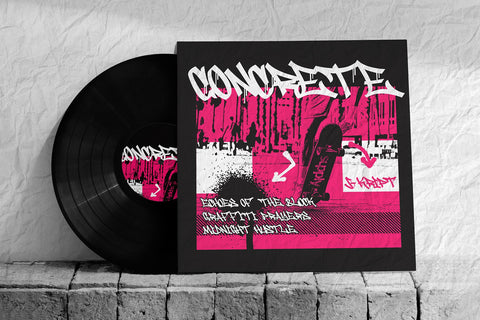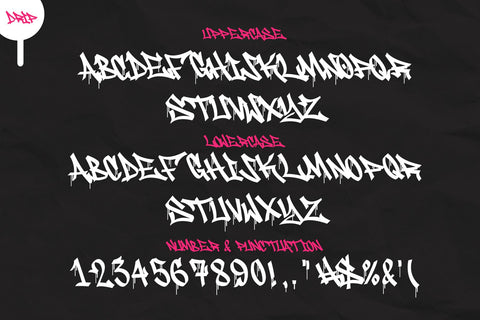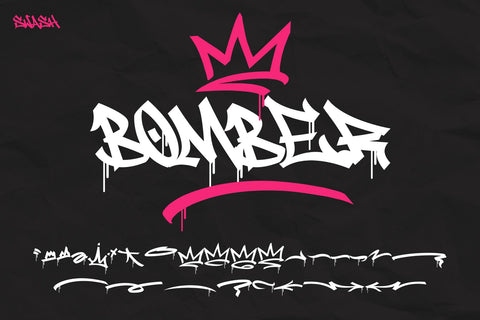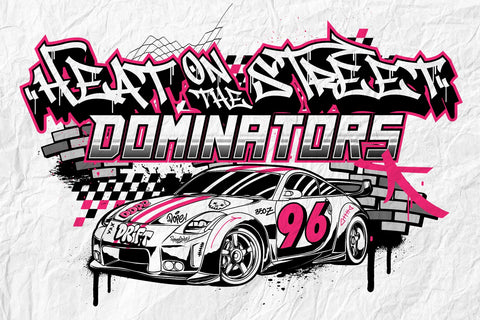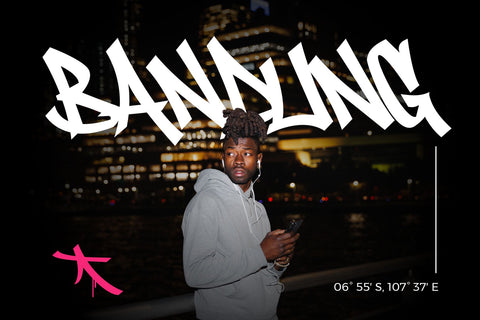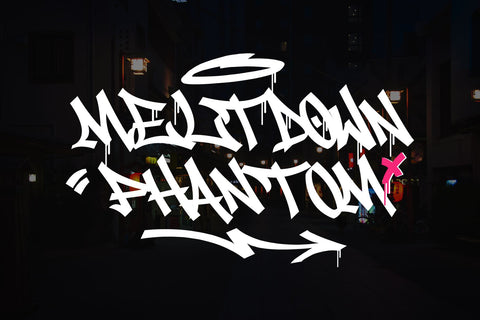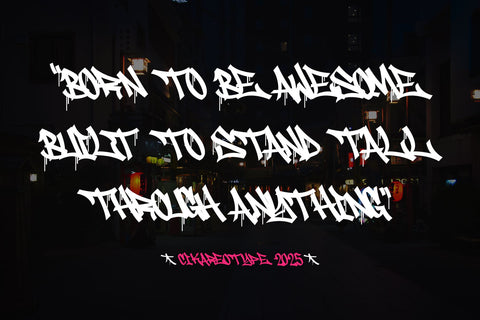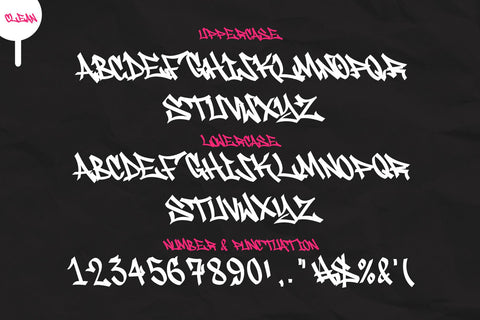
Meltdown Phantom – Urban Drip Graffiti Font
Meltdown Phantom is a rebellious monoline script graffiti font that captures raw street energy with expressive swashes and two unique styles: Dripping and Clean. This font blends the edge of urban lettering with the flow of natural handwriting, perfect for bold designs that demand attitude.
Whether you're creating apparel graphics, logo tags, streetwear branding, or digital artwork with an underground vibe, Meltdown Phantom delivers gritty personality and urban soul. Each letter flows with natural rhythm, while the optional dripping version adds raw visual drama.
Two styles: Drip & Clean
Uppercase & lowercase
Numbers & punctuation
Multilingual support
Swash
Make your next design melt into the streets with this powerful graffiti script font!